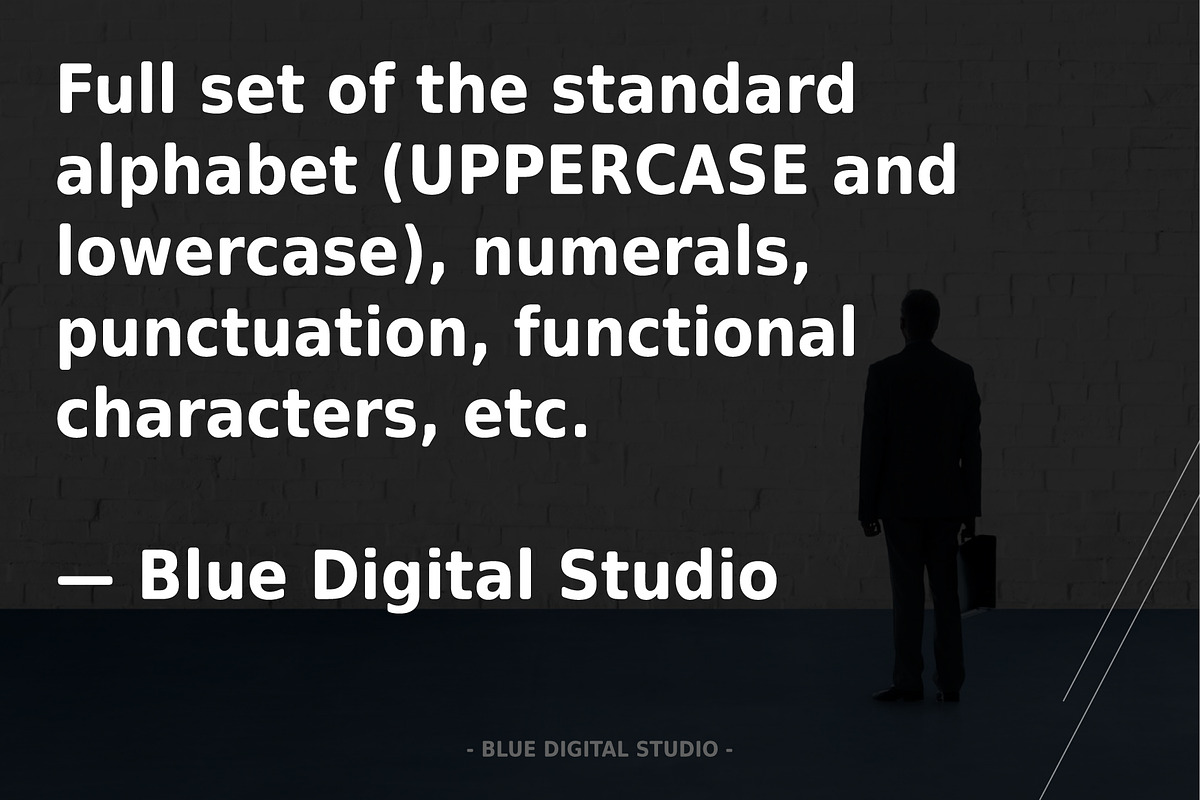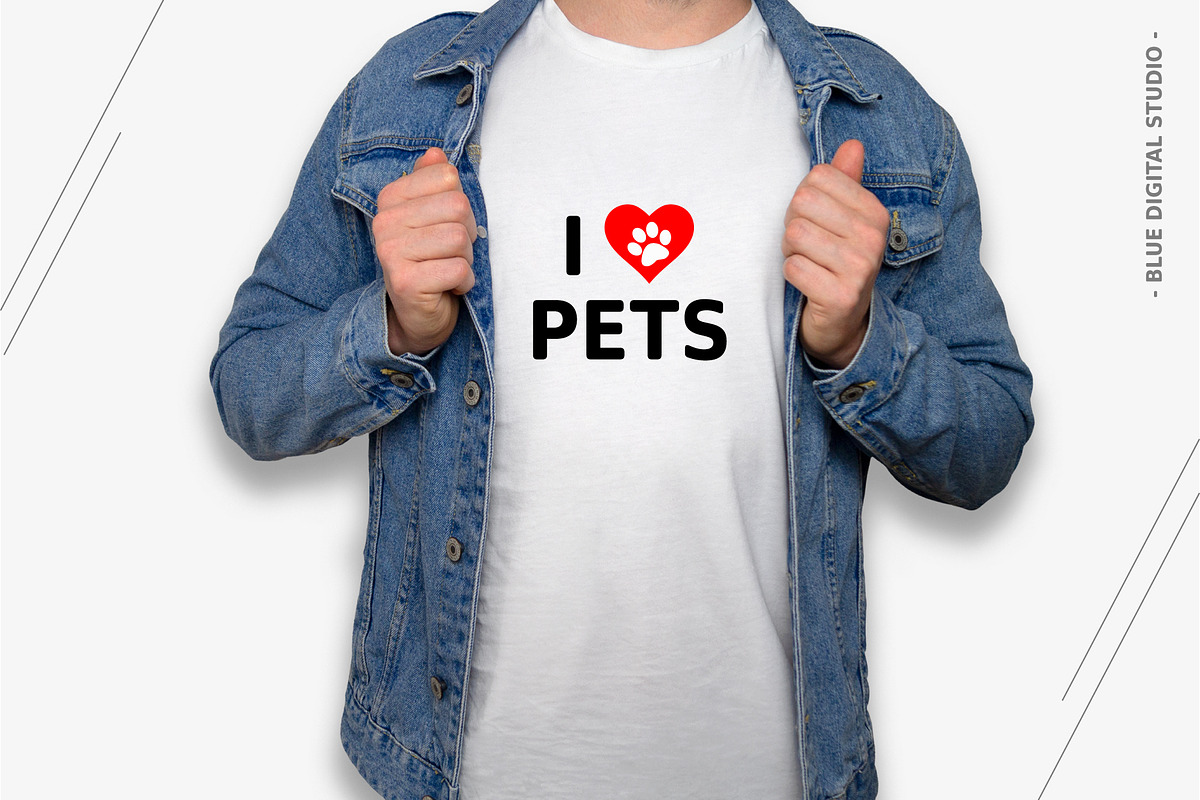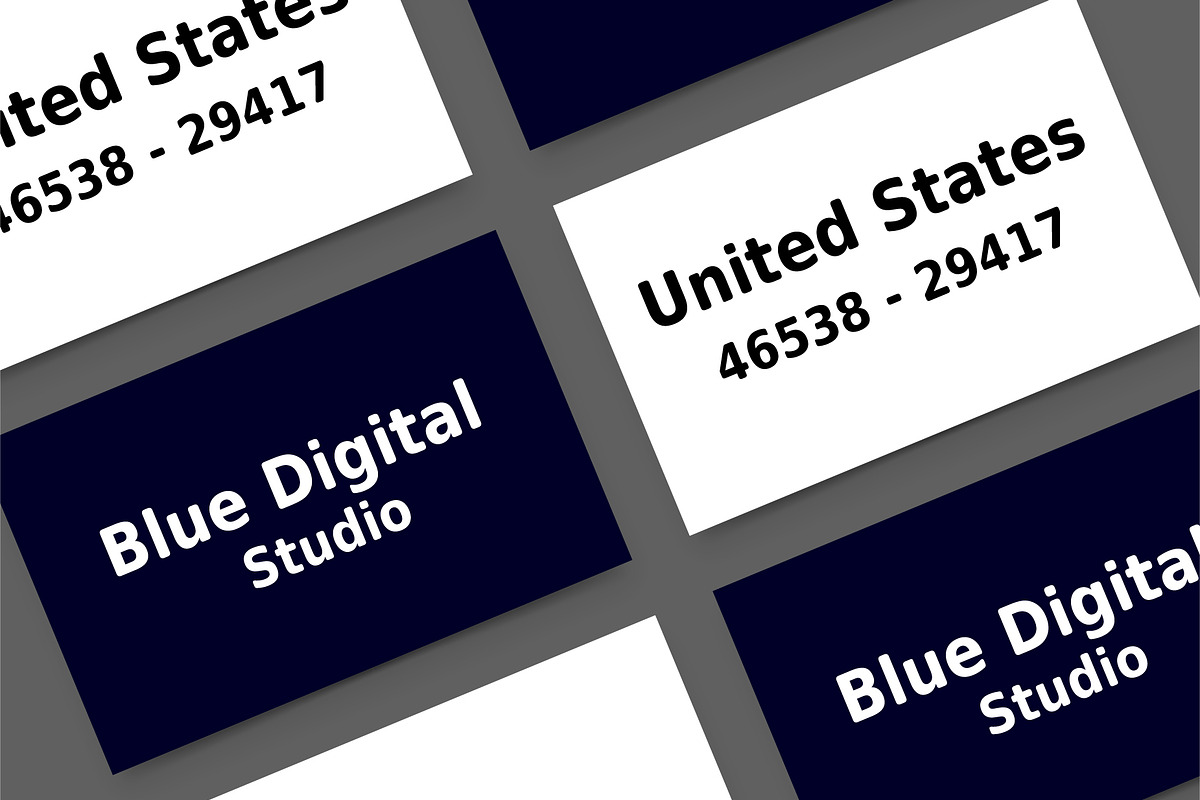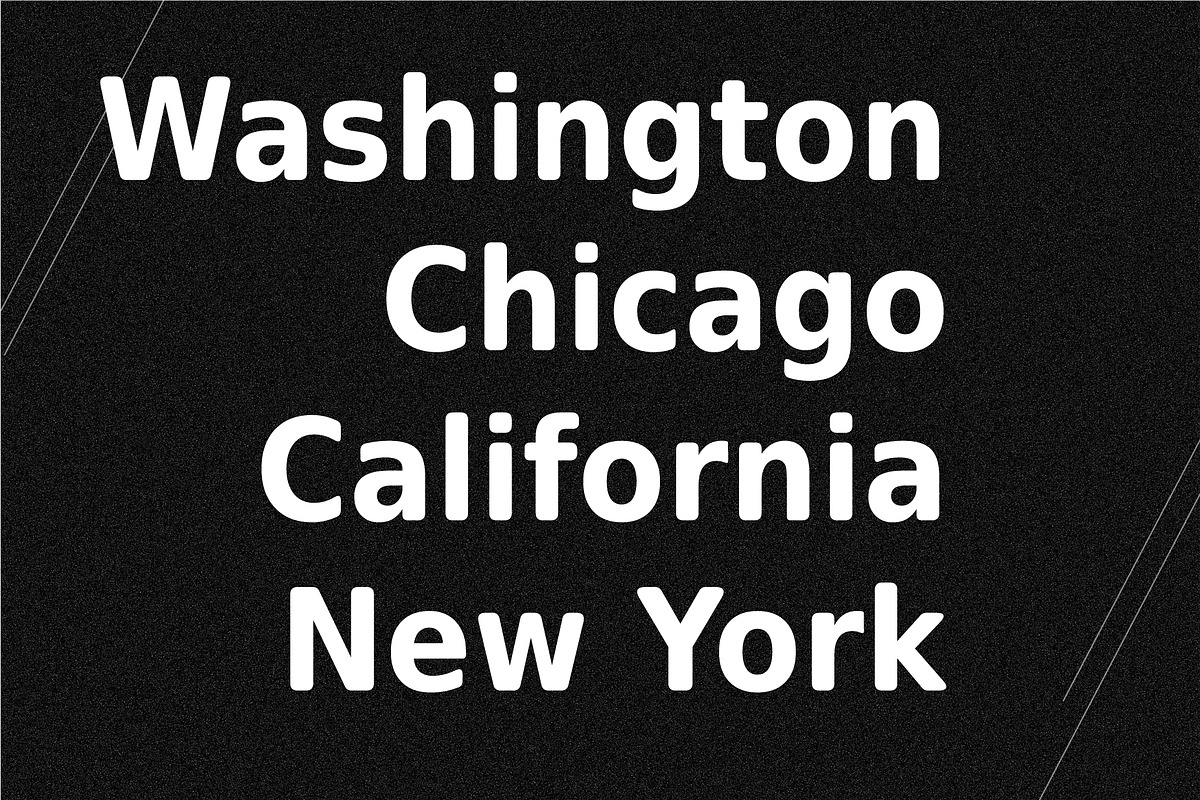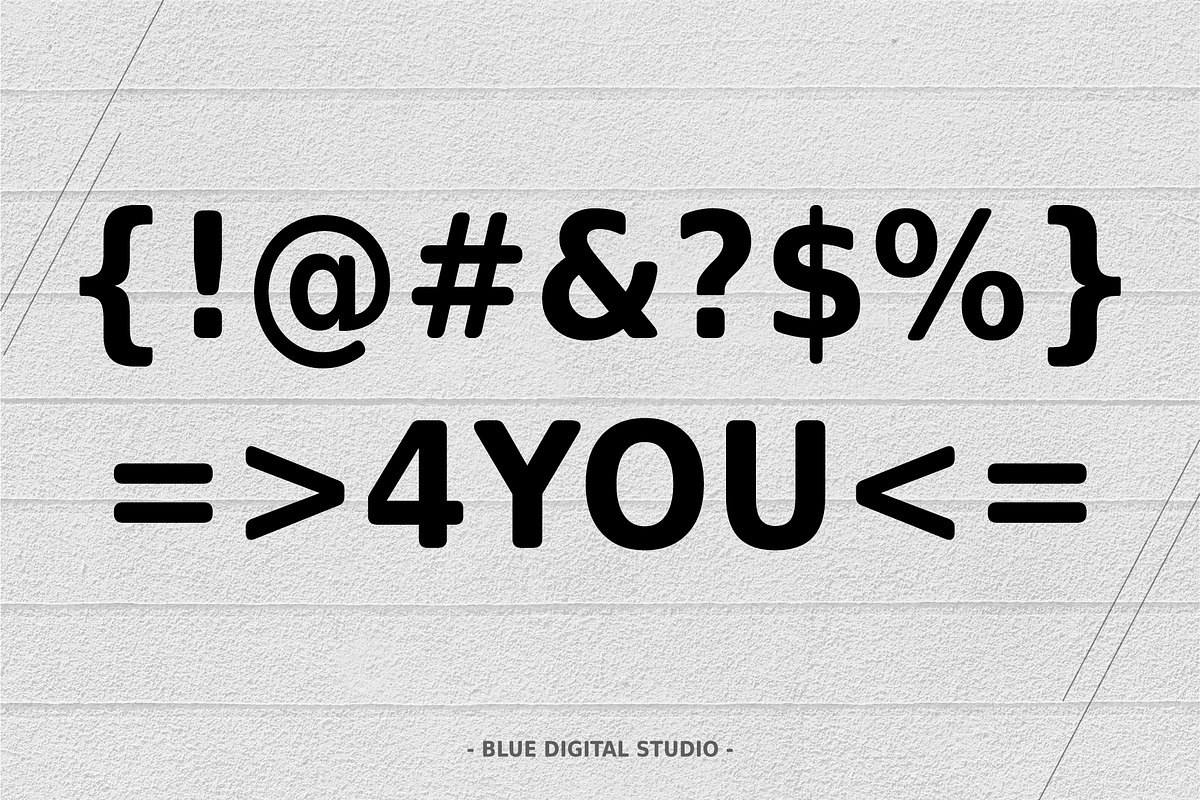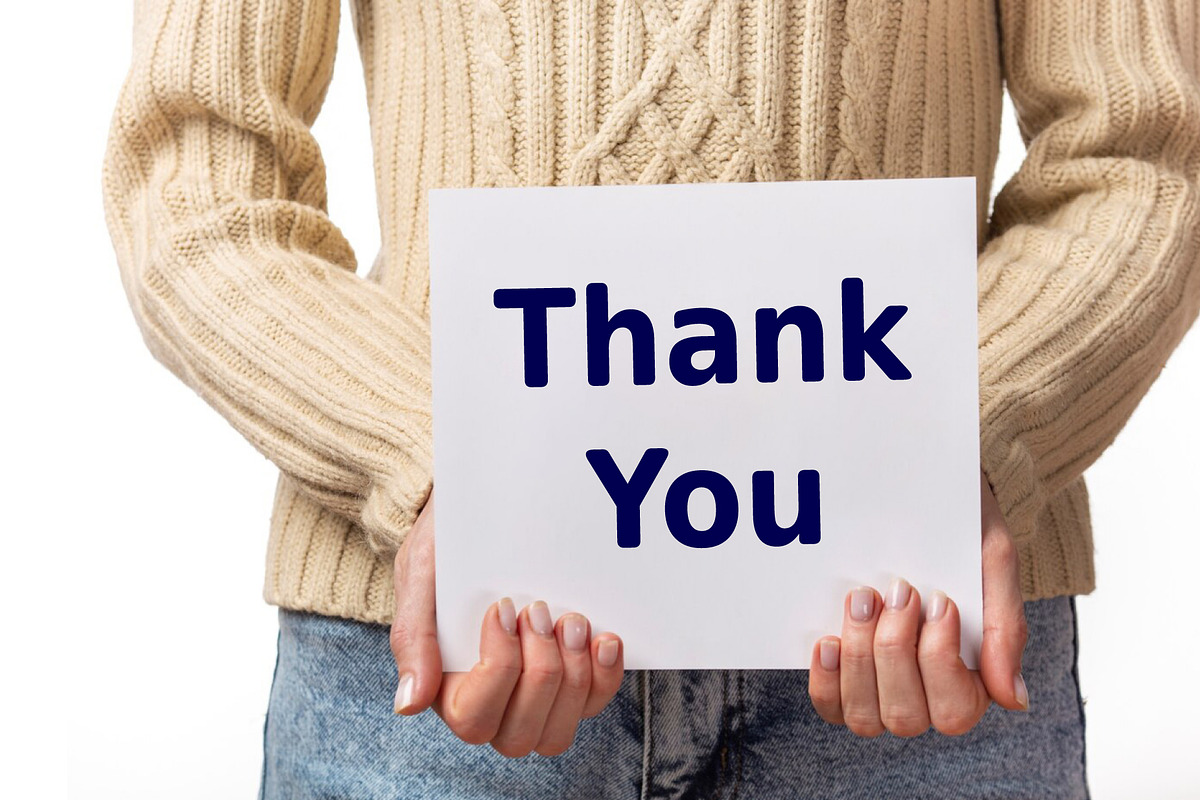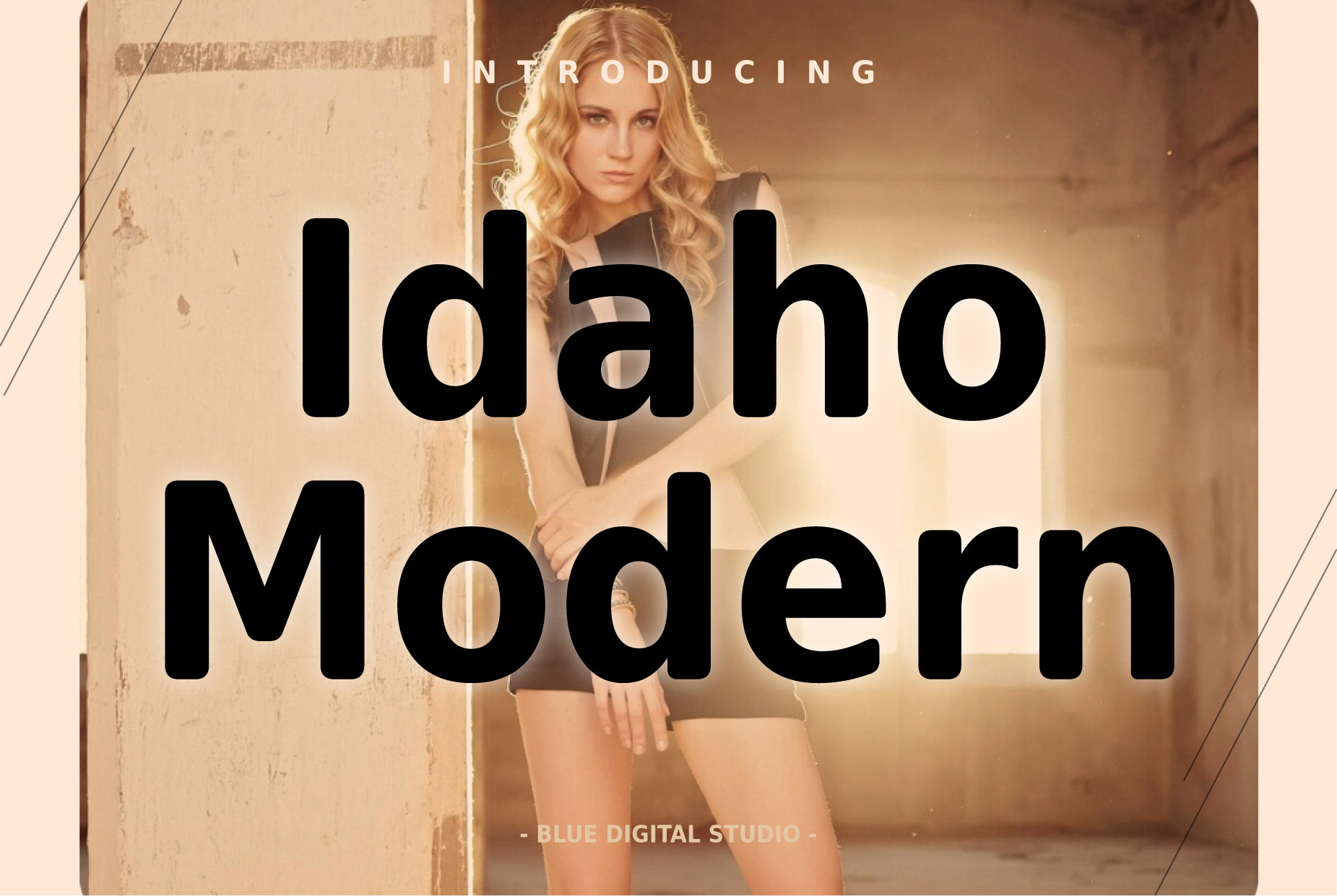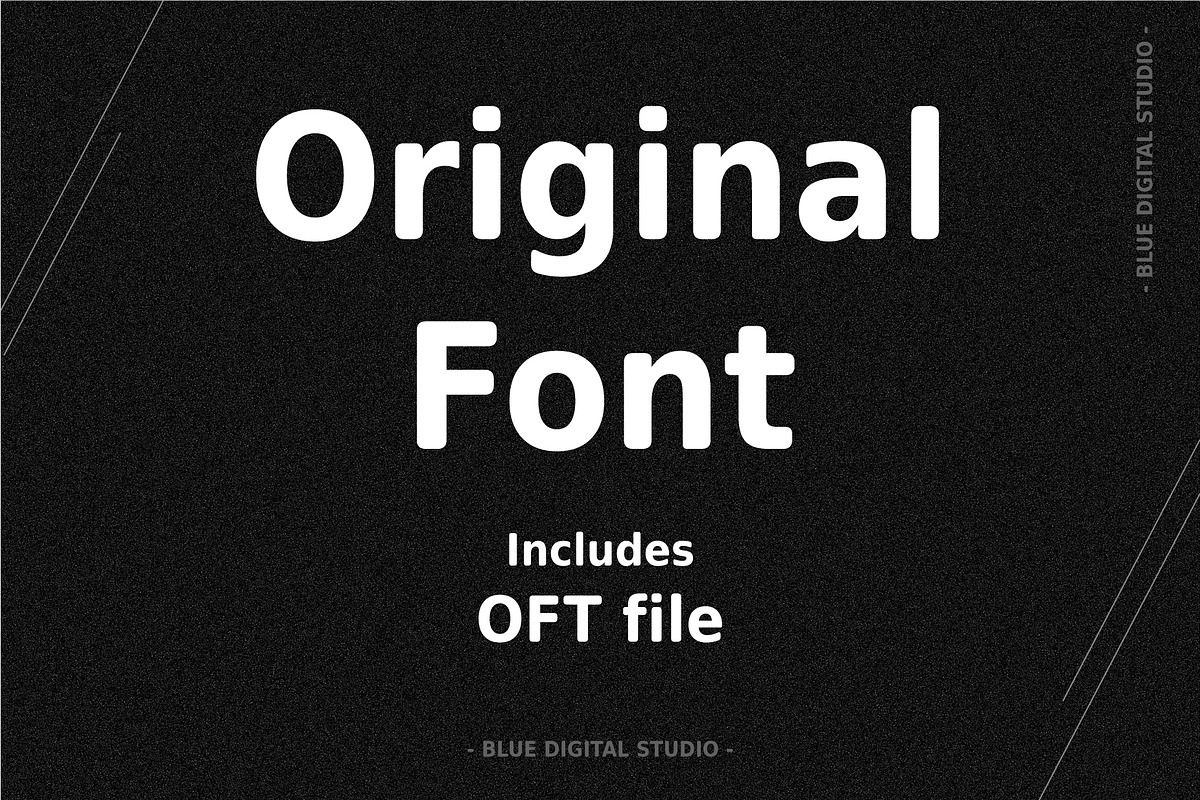
Idaho Modern Sans Serif New Font
✨ Idaho Modern Sans Serif Font
Hello Designers, Creatives & Entrepreneurs! 🎨✨ Introducing Idaho Modern Sans Serif Font, a clean, elegant, and highly versatile modern sans serif typeface crafted for impactful headline typography, logo design, and branding identity. This font blends modern minimalism with a subtle vintage aesthetic, making it perfect for both contemporary and retro-inspired projects.
Whether you're designing luxury branding, fashion editorials, social media graphics, or website UI headers, this professional display font helps you create visually stunning and high-converting designs with ease.
💎 Why Choose This Font?
✔ Modern Sans Serif Font with vintage style influence ✔ Clean, minimalist typography for premium projects ✔ Perfect for branding, logos, headlines, and titles ✔ Ideal for fashion, luxury, lifestyle, and business design ✔ High readability for print and digital use ✔ Designed for creative professionals and entrepreneurs
🔤 Font Features
• Full Uppercase & Lowercase Character Set • Numbers, Punctuation & Symbols • Functional Glyphs & Ligatures • Multilingual Support (Accented Characters) • Clean kerning for professional typography • Elegant sans serif display style
🚀 Perfect For
• Logo Design & Branding Identity • Social Media Graphics & Instagram Quotes • T-shirt Design & Merchandise • Website Headers & UI/UX Design • Packaging & Product Design • Editorial Layouts, Magazines & Invitations • Marketing Campaigns & Advertising Design